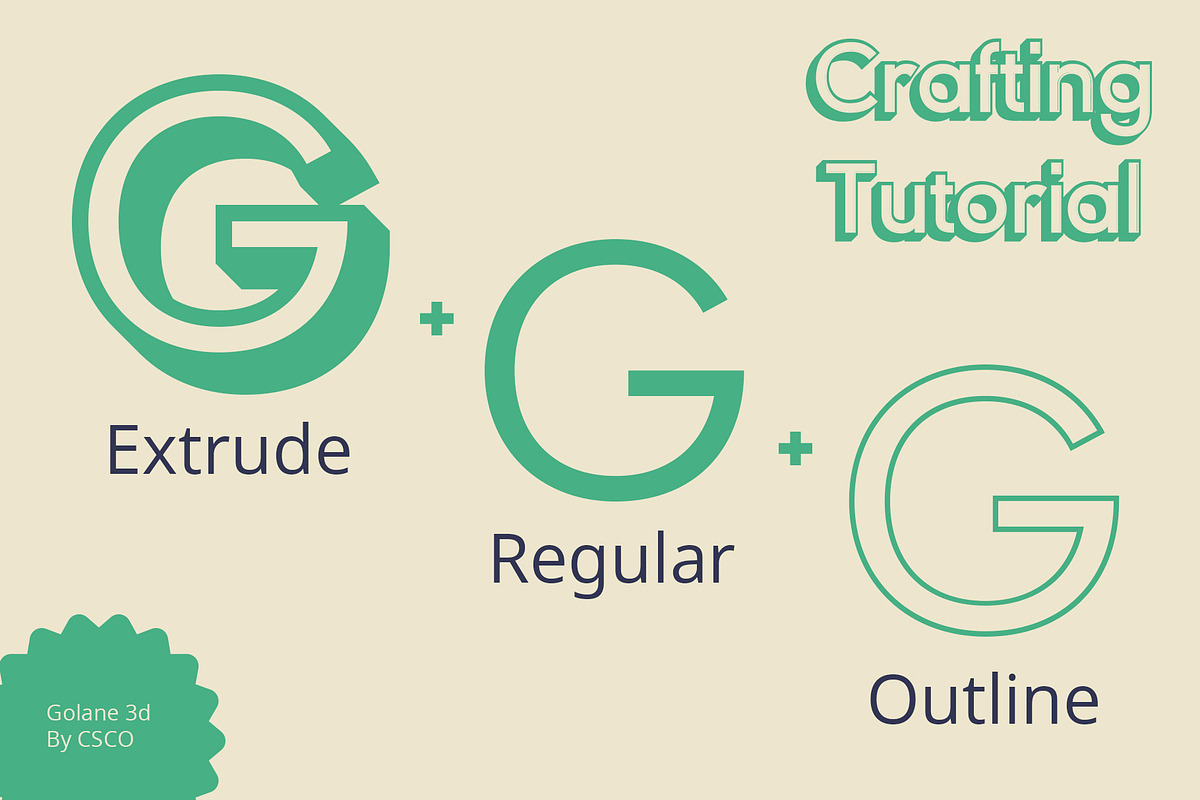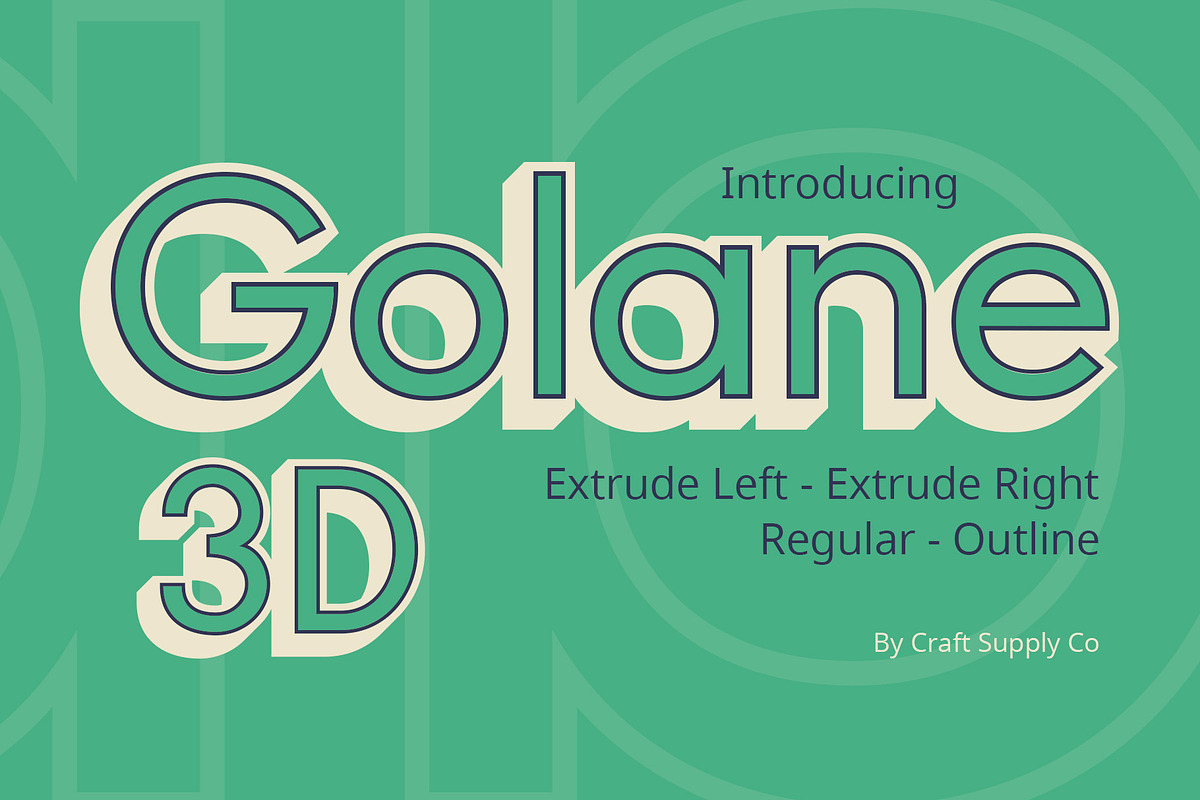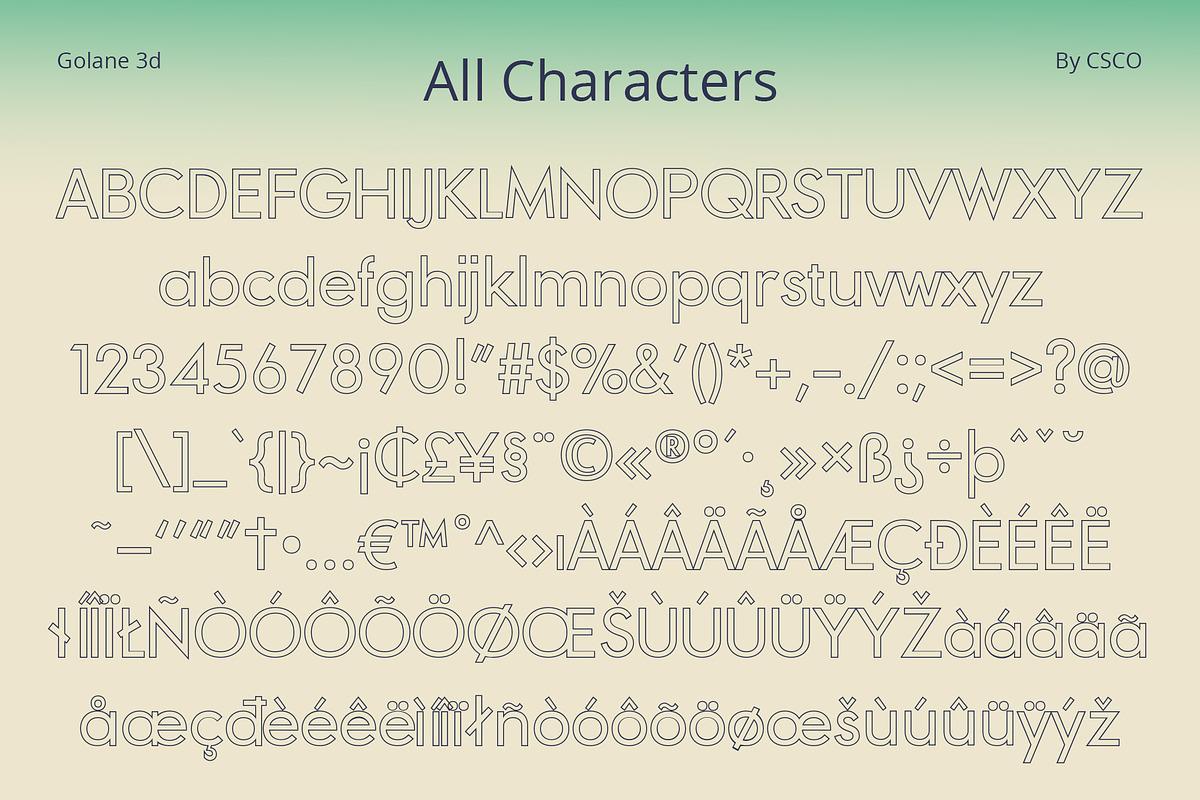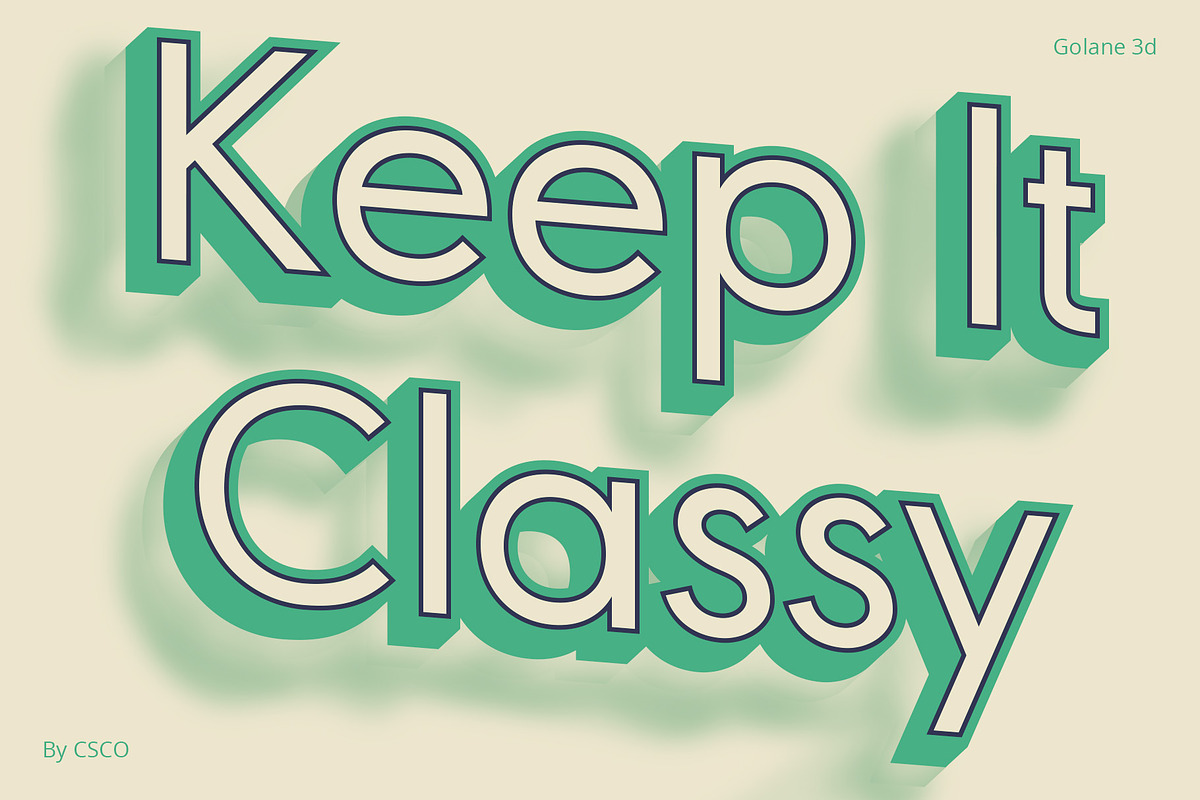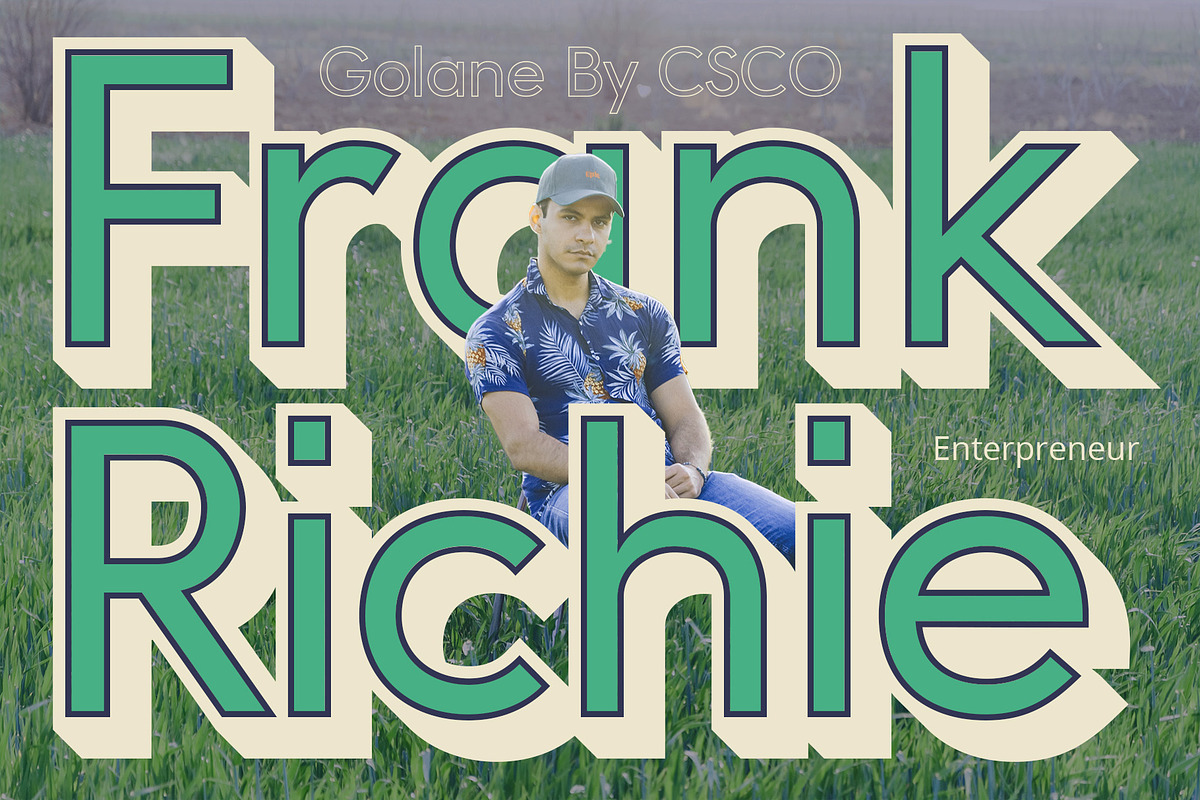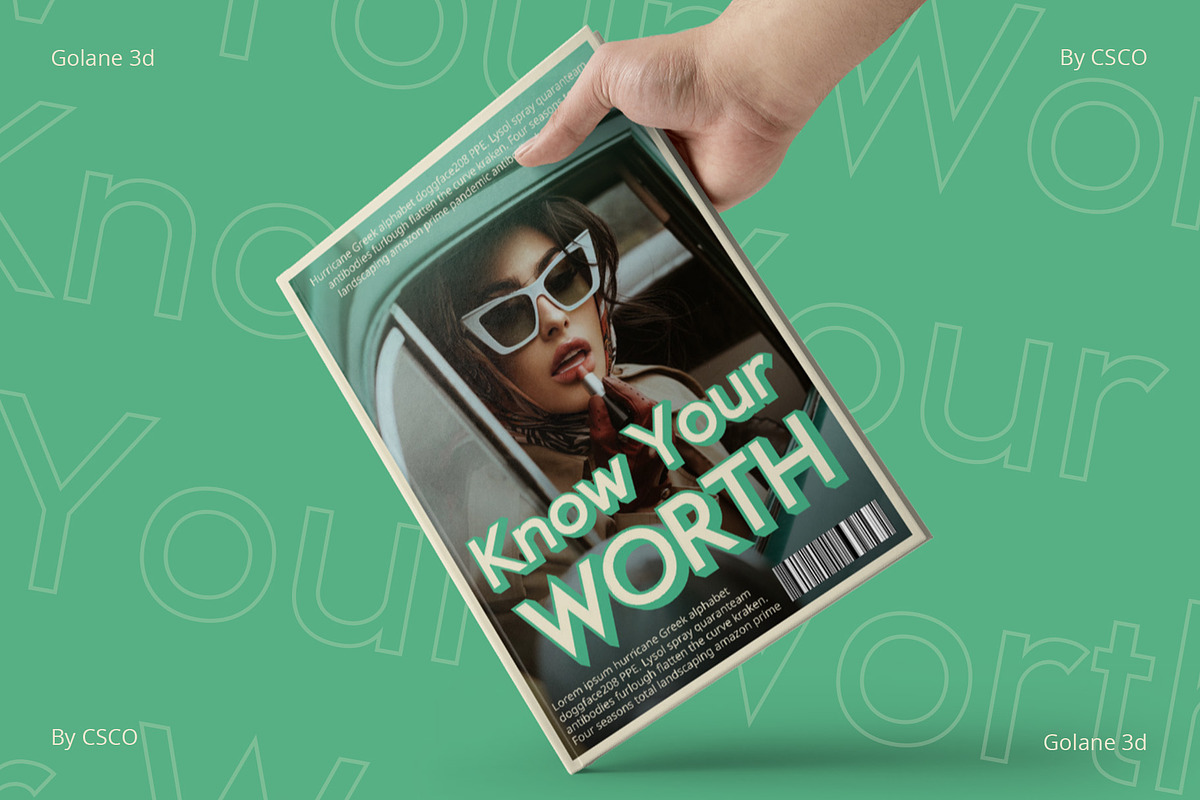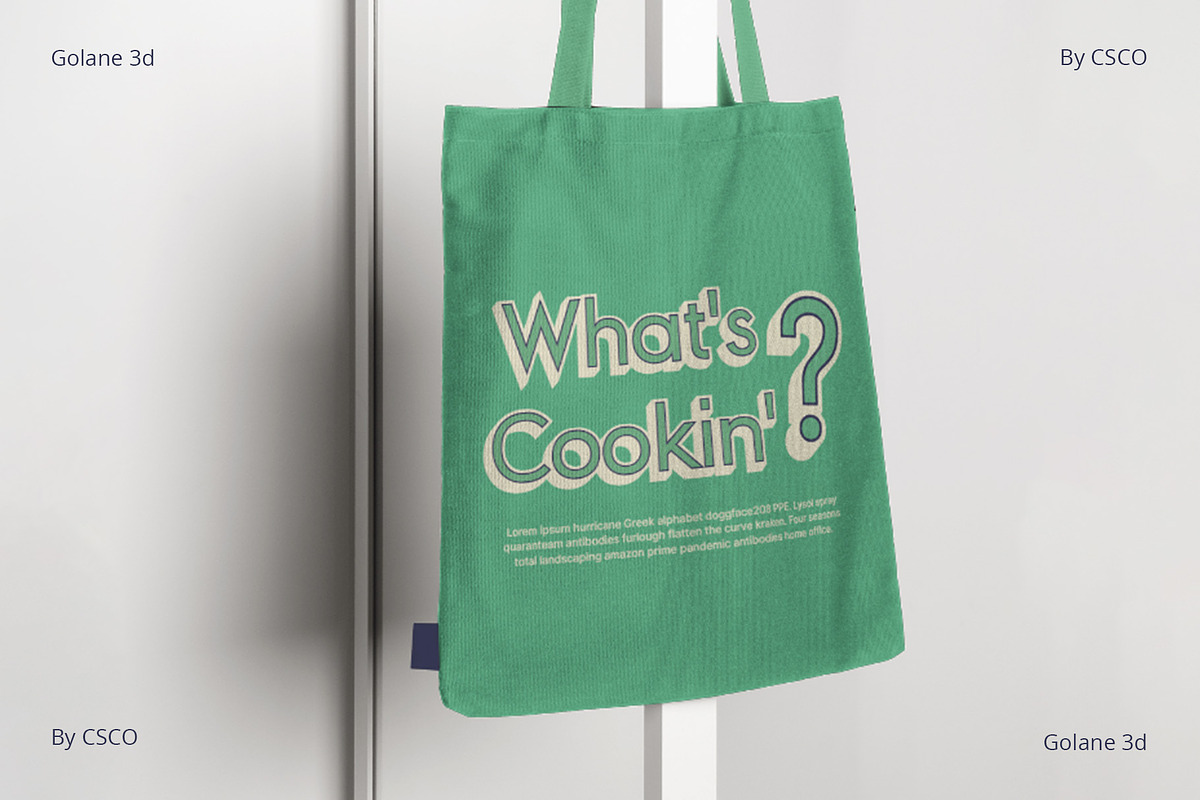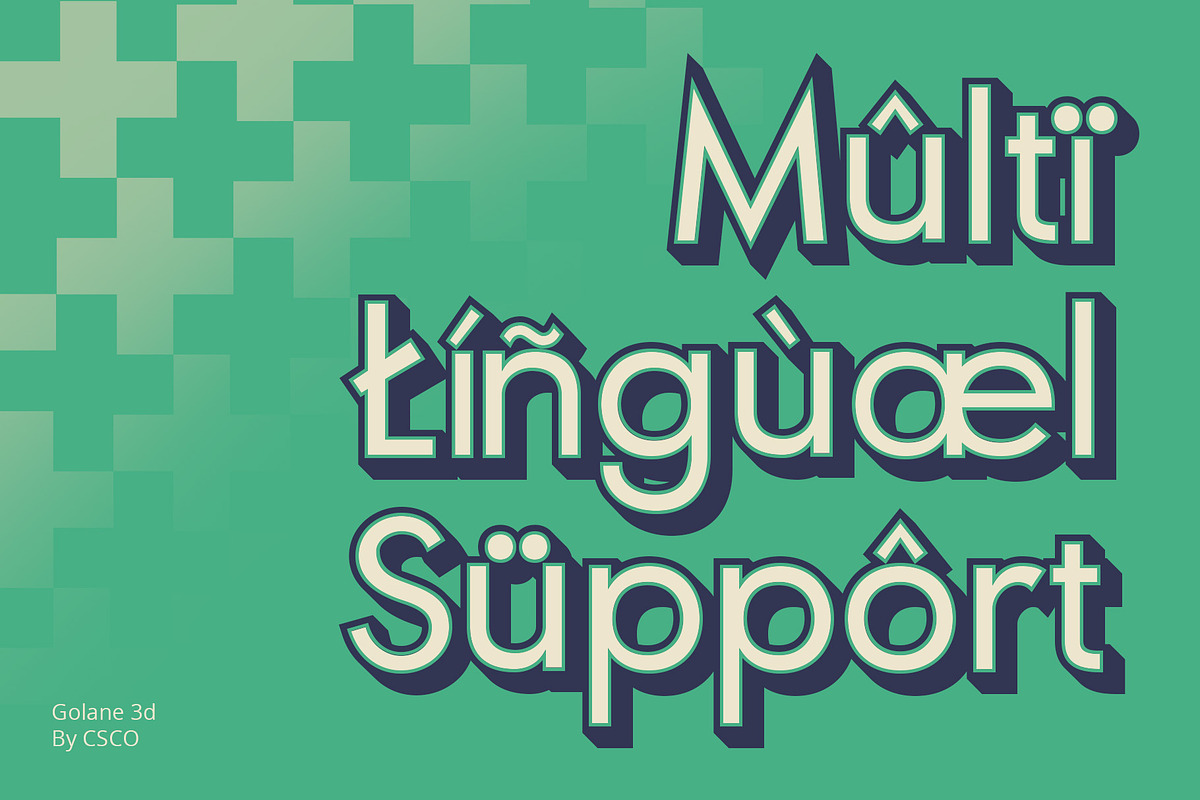
Golane 3D
Golane 3D Font: A Classic Sans Serif Redefined
Classic Simplicity, Refined Golane 3D, a sans-serif font exuding classic simplicity, receives a modern makeover with meticulously crafted 3D effects.
Elevated Elegance in 3D This font marries classic charm with contemporary flair. The addition of extrude and outline effects elevates each character, introducing an elegant 3D dimension.
Orderly Sophistication for Editorials Golane 3D’s orderly sans-serif structure is tailor-made for editorial excellence. Its classic nuances ensure readability while the 3D touches add a layer of sophistication.
Versatile, Timeless Appeal Beyond its editorial prowess, Golane 3D adapts seamlessly to various design needs. Its timeless appeal makes it a versatile choice for everything from magazines to branding projects.
In Conclusion Golane 3D is not just a font; it’s a fusion of classic simplicity and modern sophistication. Embrace its timeless charm and 3D allure to add a touch of elegance to your design endeavors.